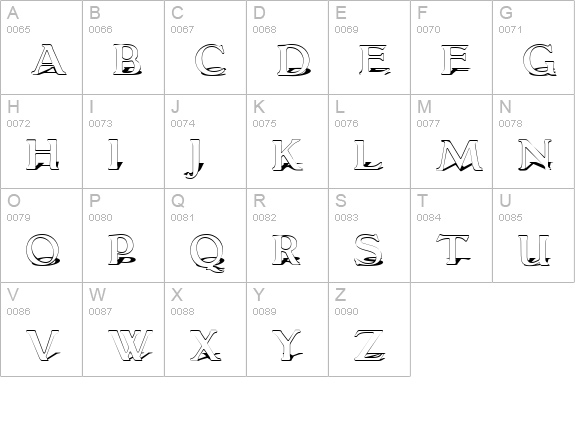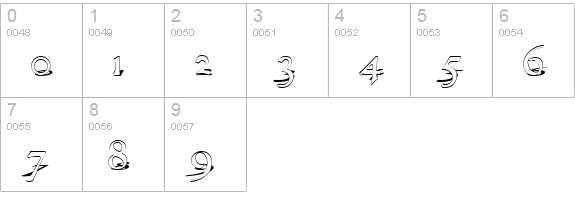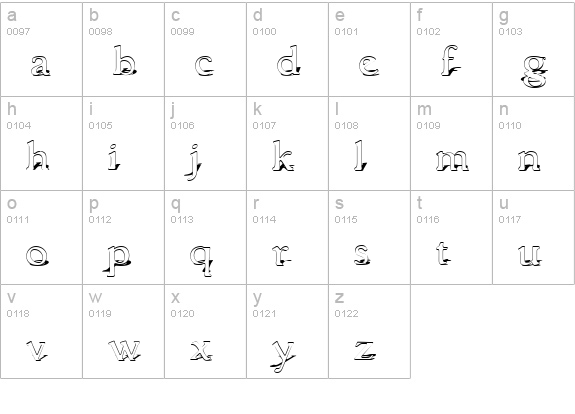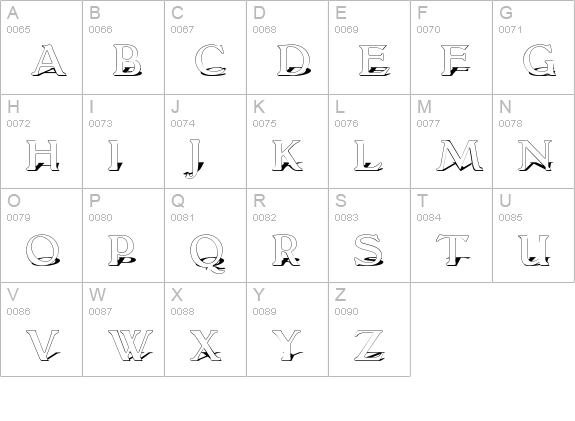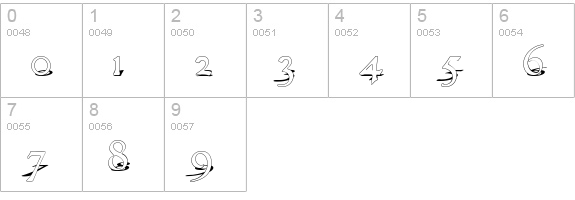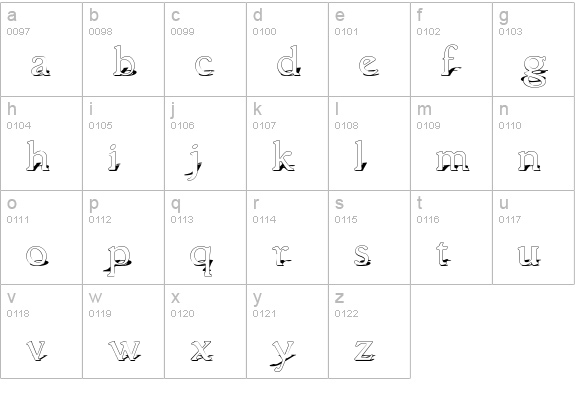
GranthamShadow Font Details
GranthamShadow font is a unique and eye-catching display typeface that commands attention with its bold and striking presence. With its sharp edges and shadow effect, this font exudes a sense of modernity and sophistication. Perfect for headlines, titles, and logos, GranthamShadow font will add a touch of elegance to any design project. The best part? GranthamShadow font is available for free download at FontsMarket.com. This means you can easily access this stunning font and use it in your creative endeavors without any cost. Don't miss out on the opportunity to enhance your designs with the distinctive style of GranthamShadow font. Download it today and let your creativity shine!